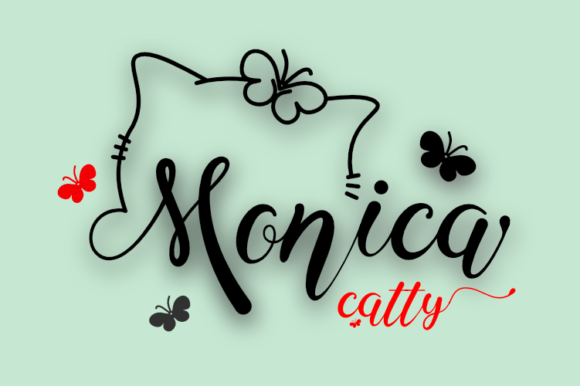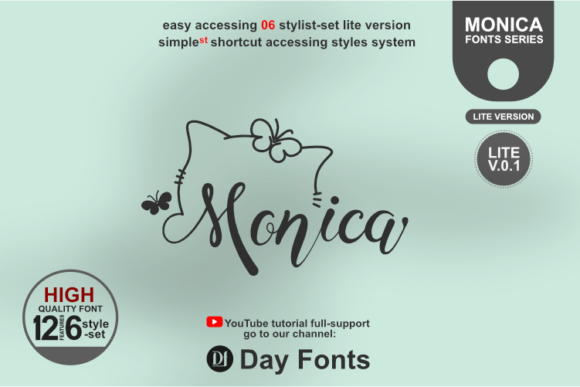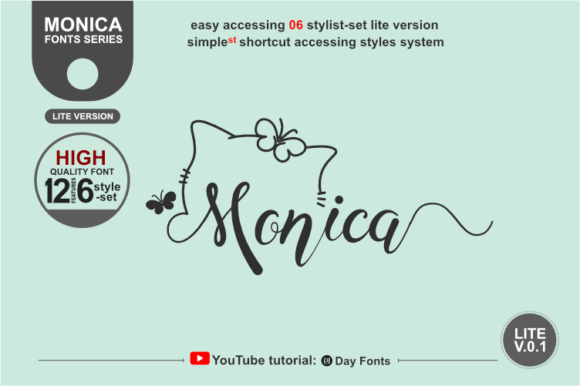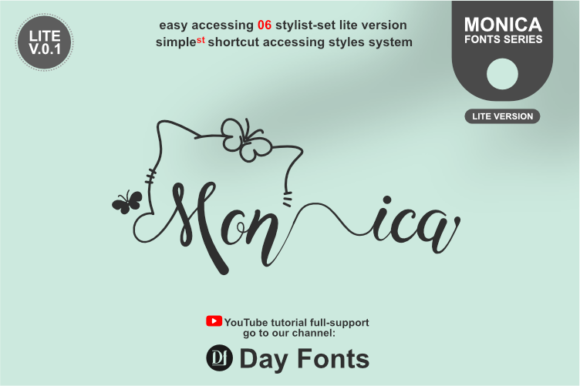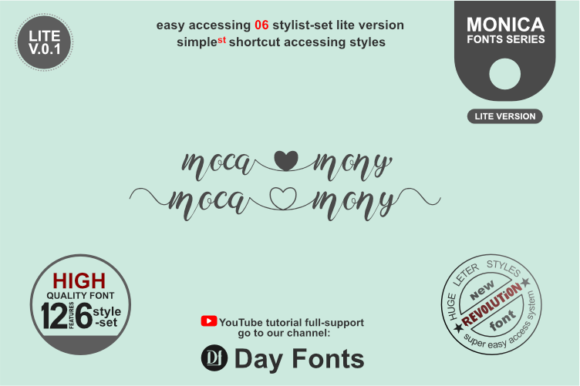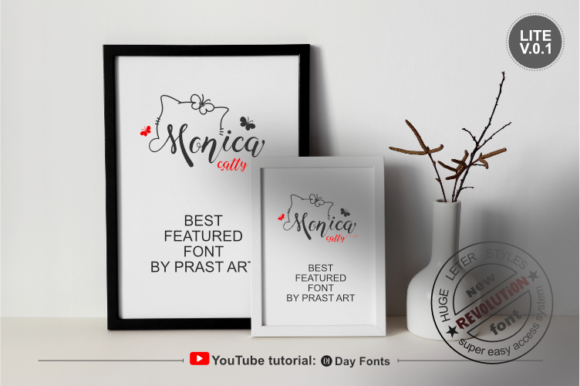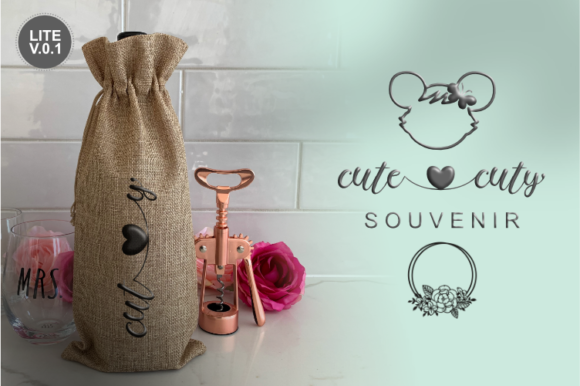
About Monica Font
The Monica Font Family is a chic, refined script font that emanates sophistication and elegance. With stylish family alternatives and ligatures, this font is a perfect match for any project.
Monica Catty is PUA encoded, which means you can access all of the glyphs and swashes with ease!